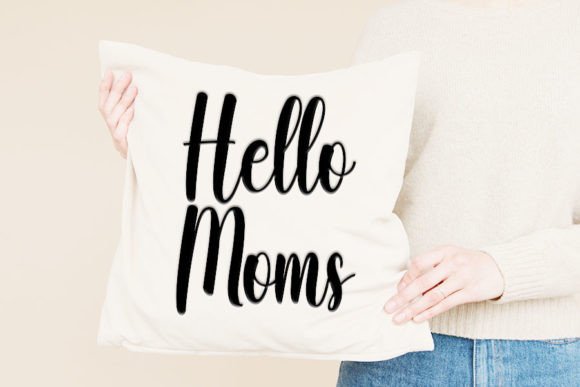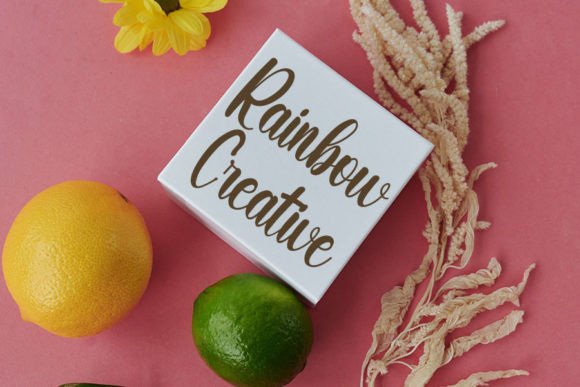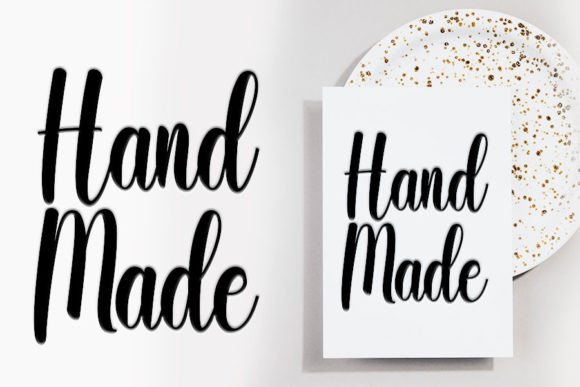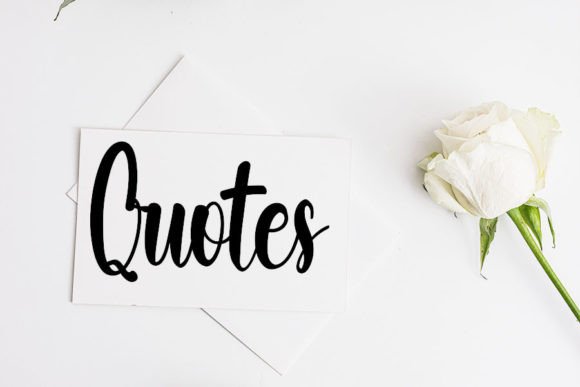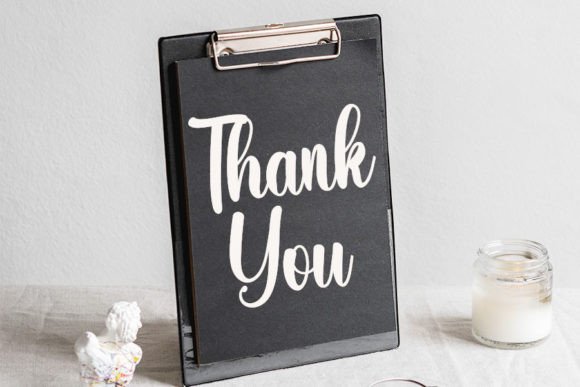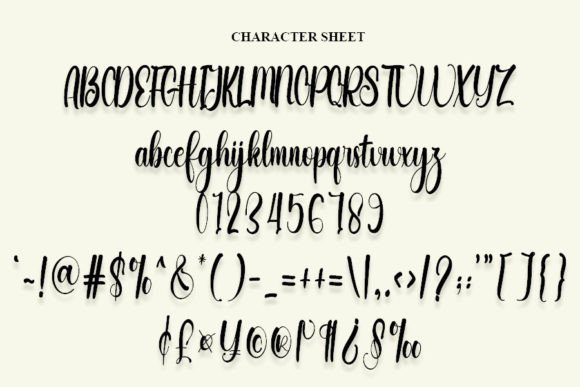
Simple Friday Font
Add a touch of elegance and class to your projects with the Simple Friday font. This trendy handwritten script combines a contemporary atmosphere with impeccable form. It is inspired by timeless classic calligraphy, making it perfect for modern yet sophisticated designs.
The Simple Friday font is ideal for logos, branding, invitations, social media posts, and much more. Its smooth and stylish strokes give your work a polished and refined look, perfect for any creative project.
Each character in the Simple Friday font is carefully designed to balance beauty and readability. This ensures your designs are both attractive and easy to read. The font is versatile and adapts well to a variety of uses.
Despite its stylish design, the Simple Friday font remains clear and legible at various sizes. Whether used for bold headlines or subtle accents, it enhances your creative work with sophistication.
Using this font will help your designs stand out with a modern and elegant style. If you want your projects to look trendy and classy, the Simple Friday font is an excellent choice.
In summary, the Simple Friday font fits many creative needs. From branding and invitations to social media and logos, it brings elegance and style. Download it today and create stunning, polished designs with this trendy handwritten script.